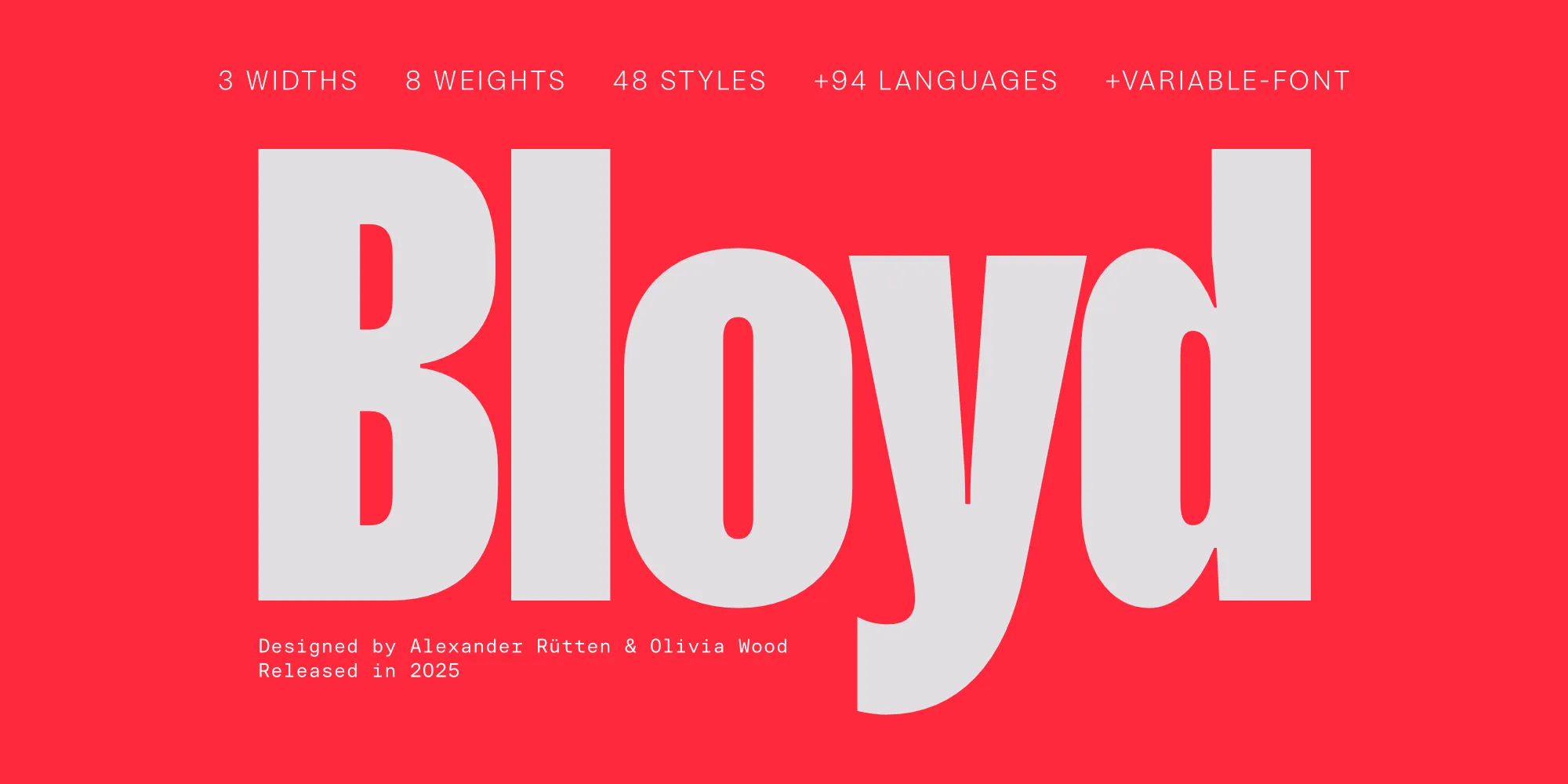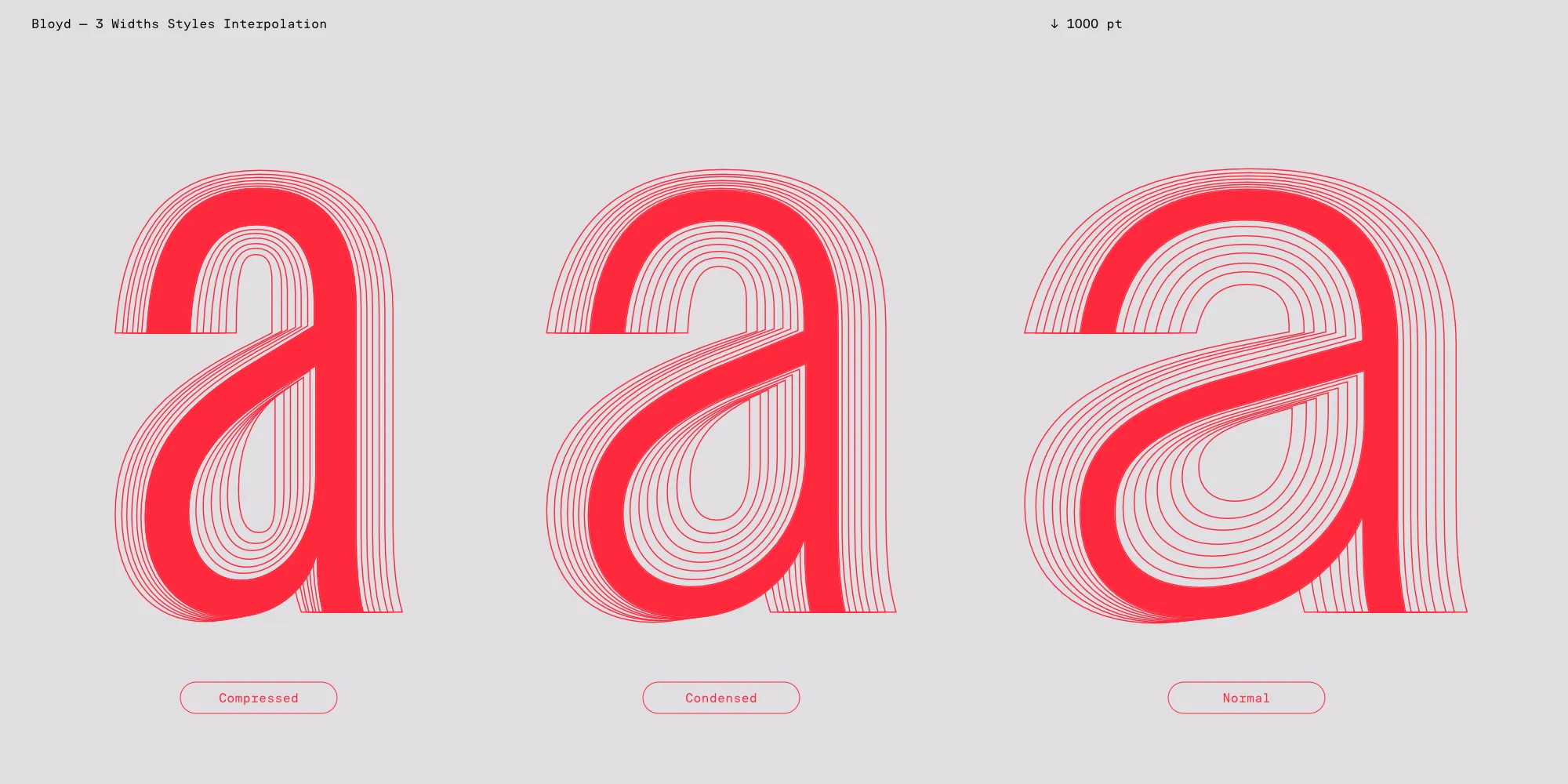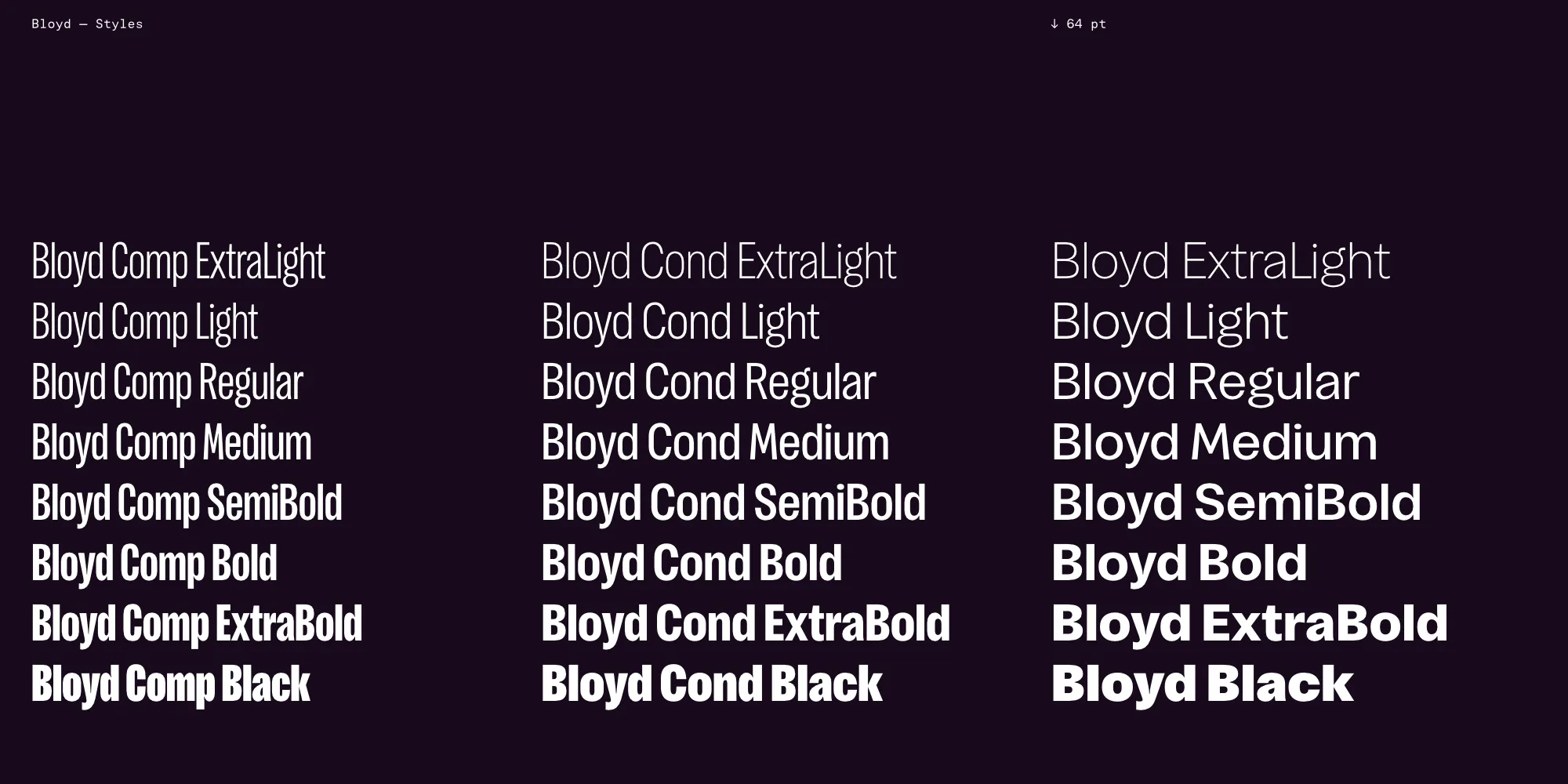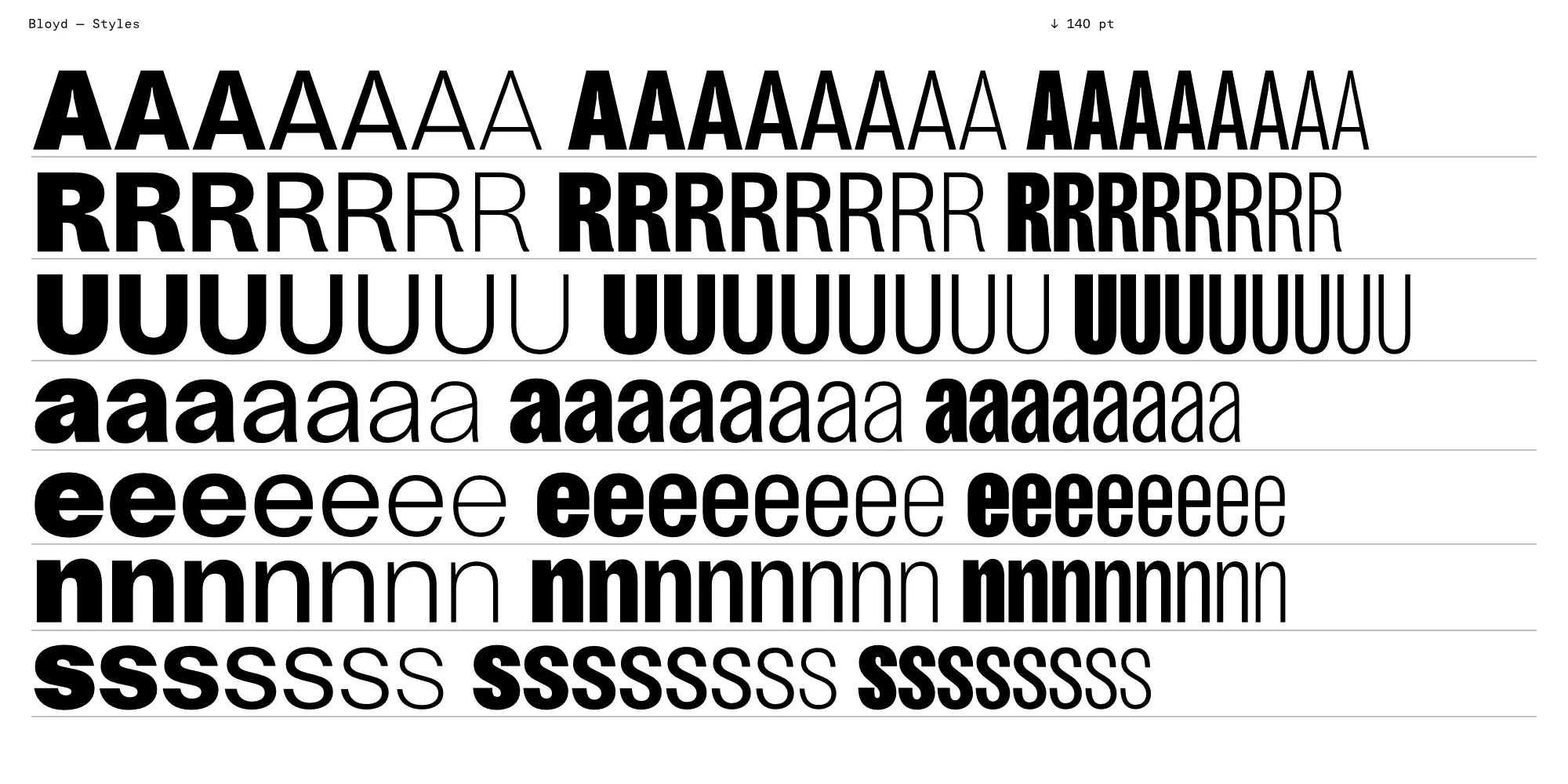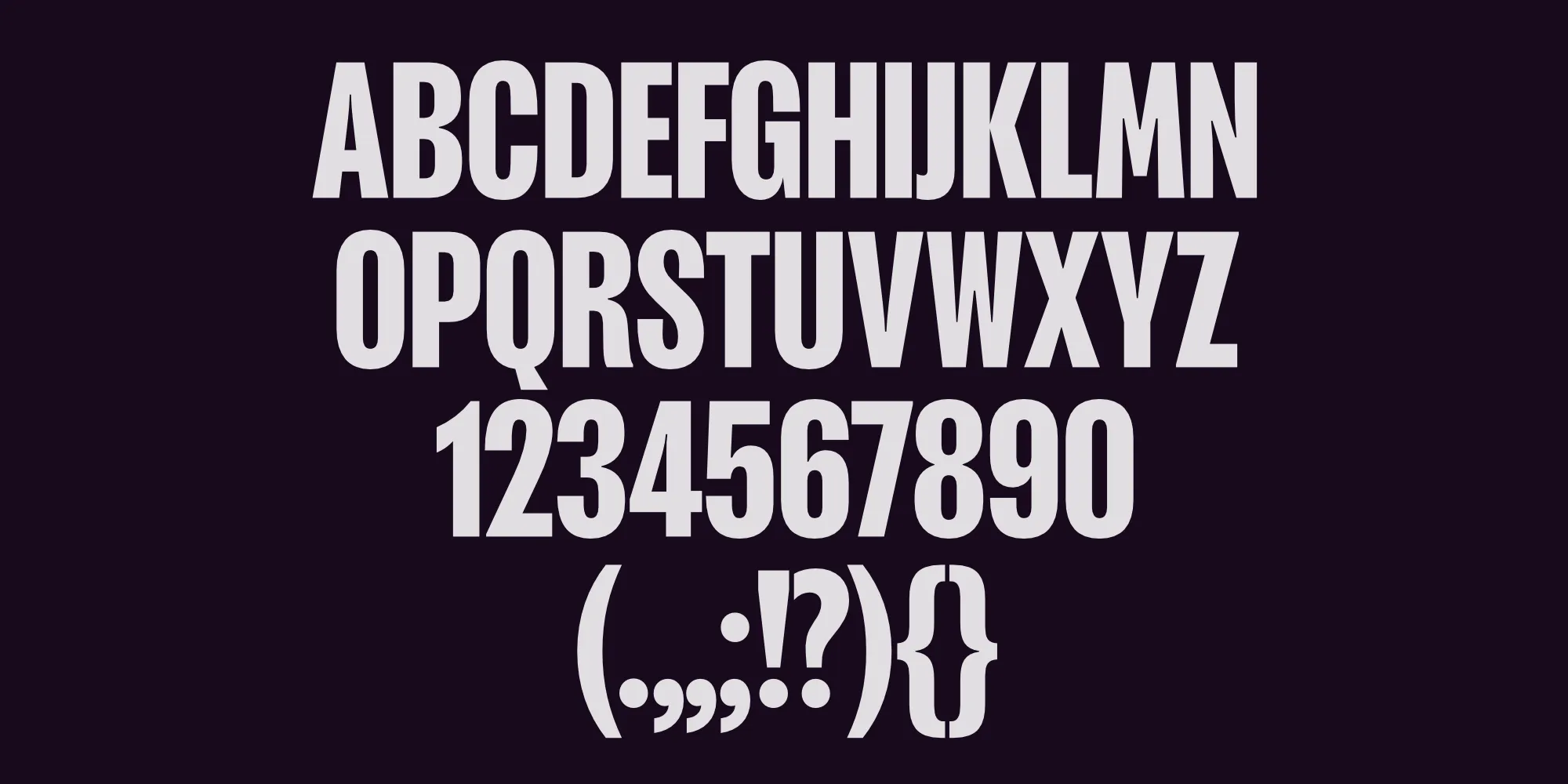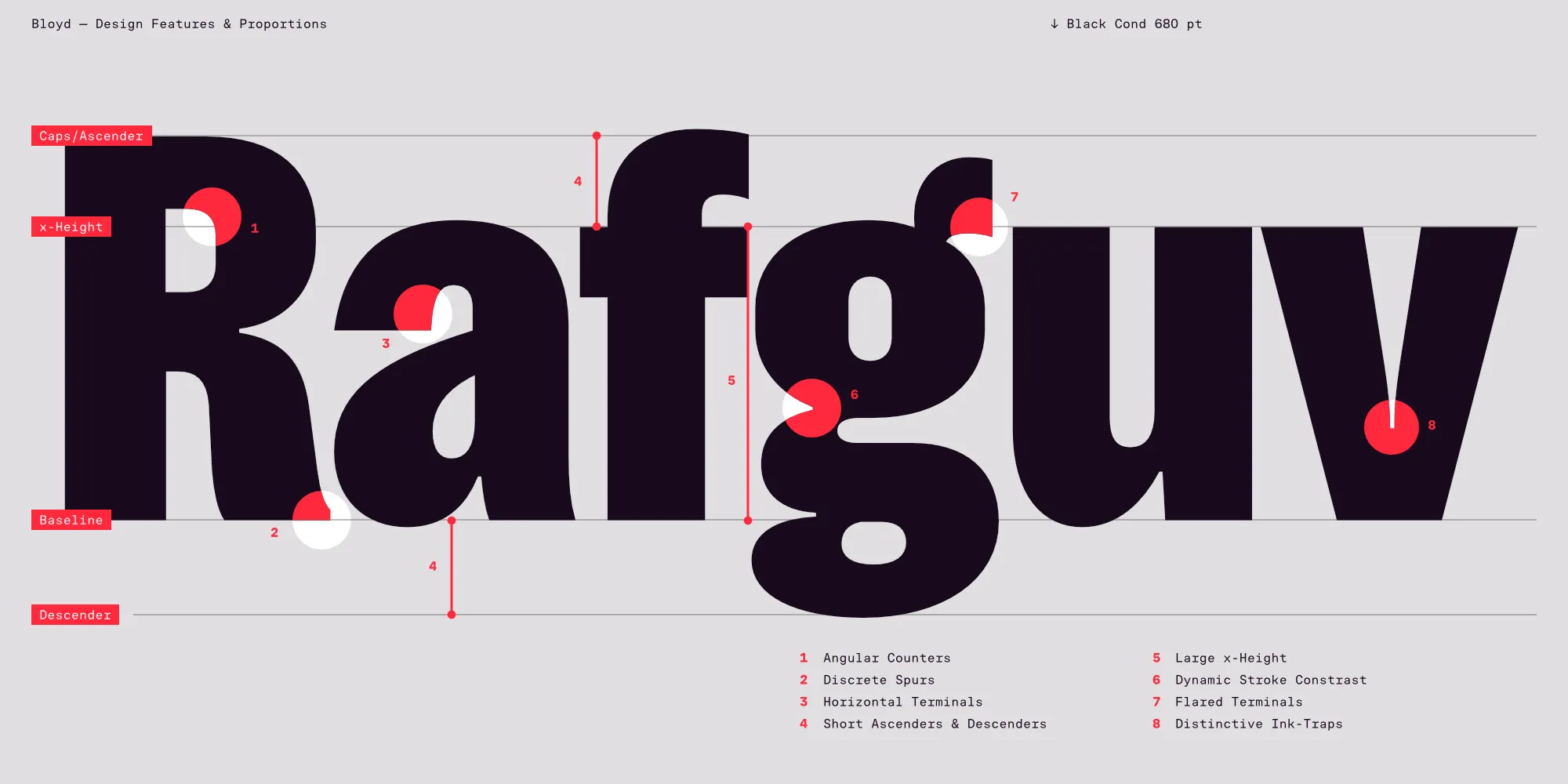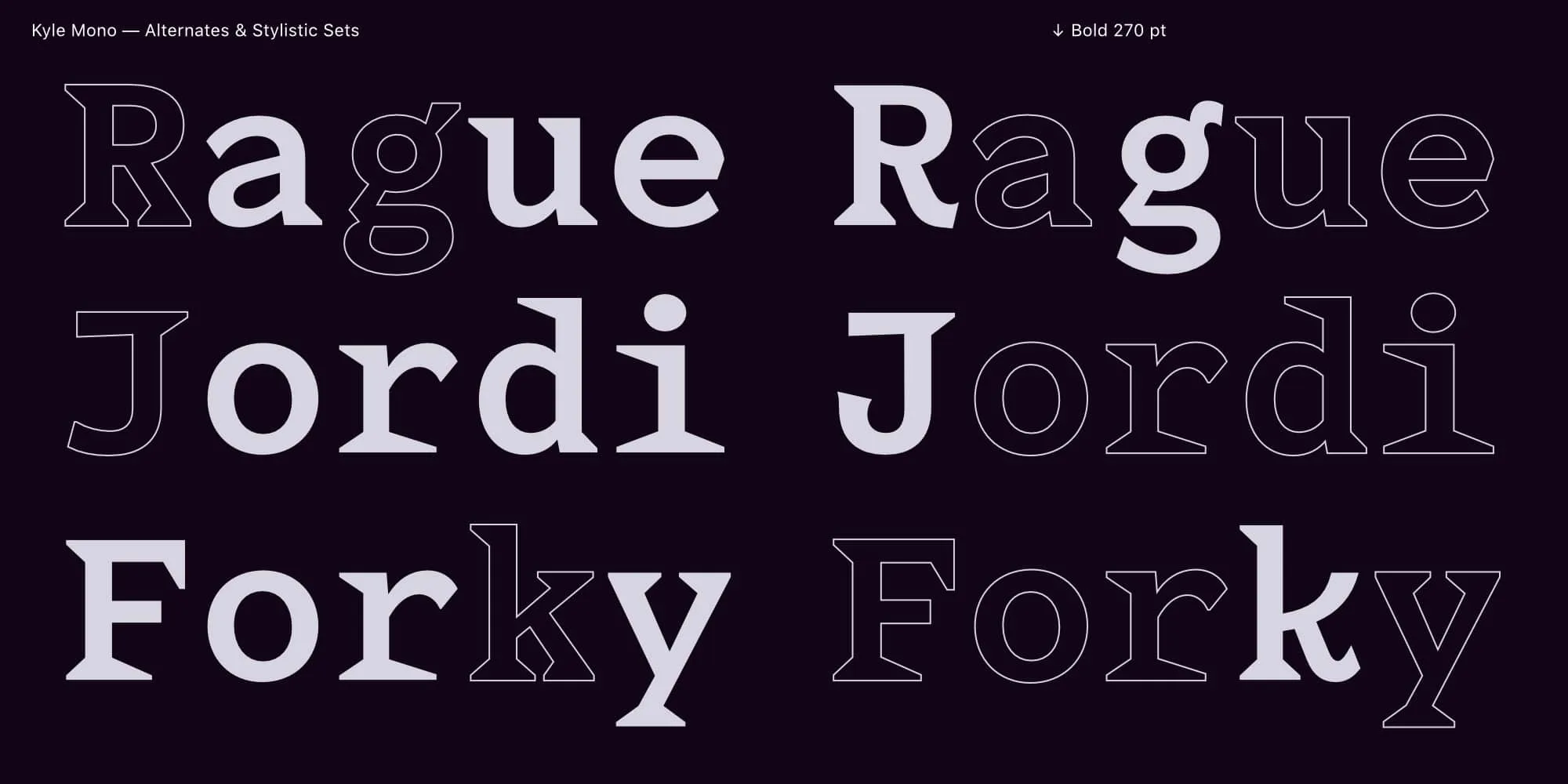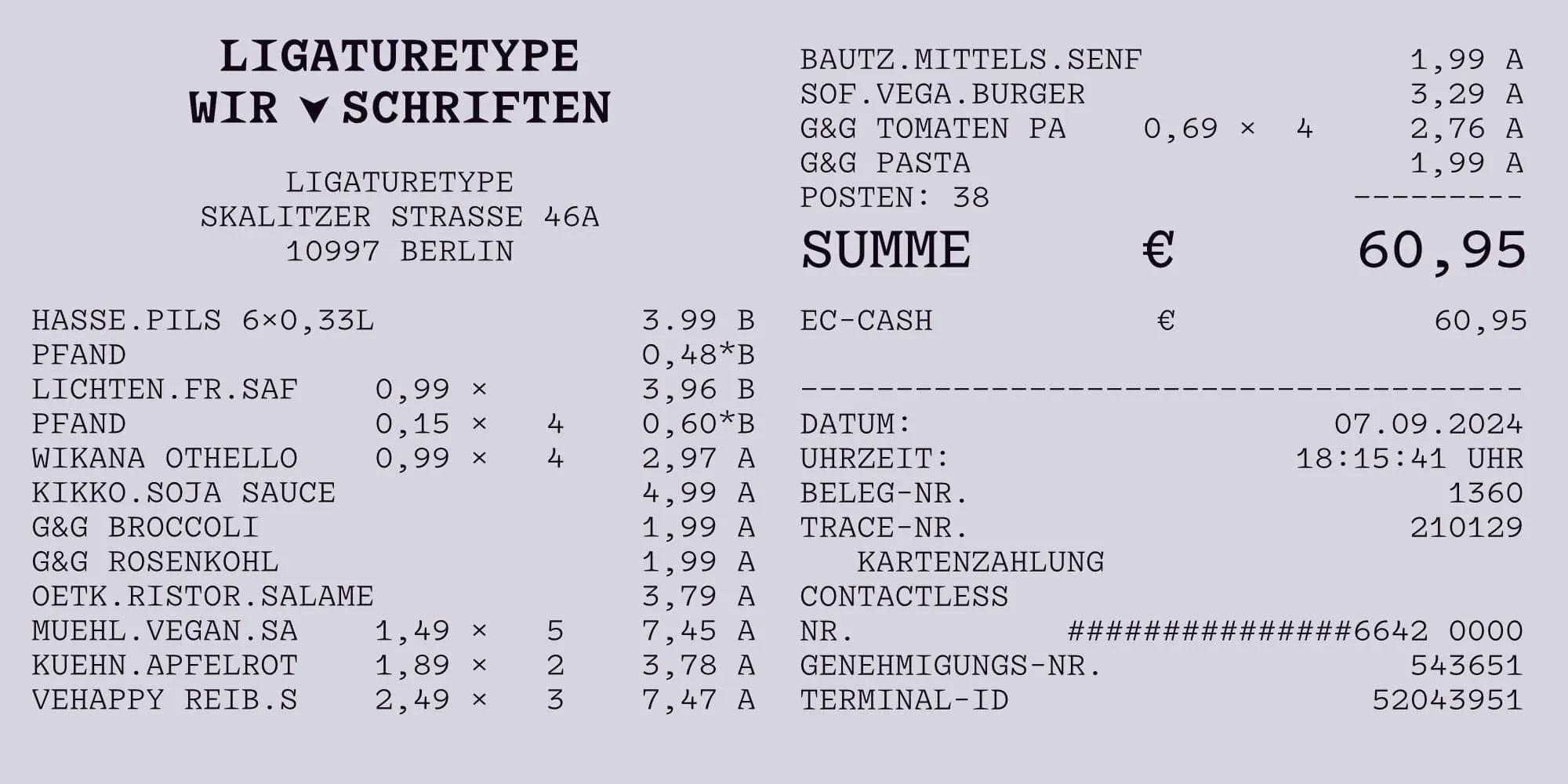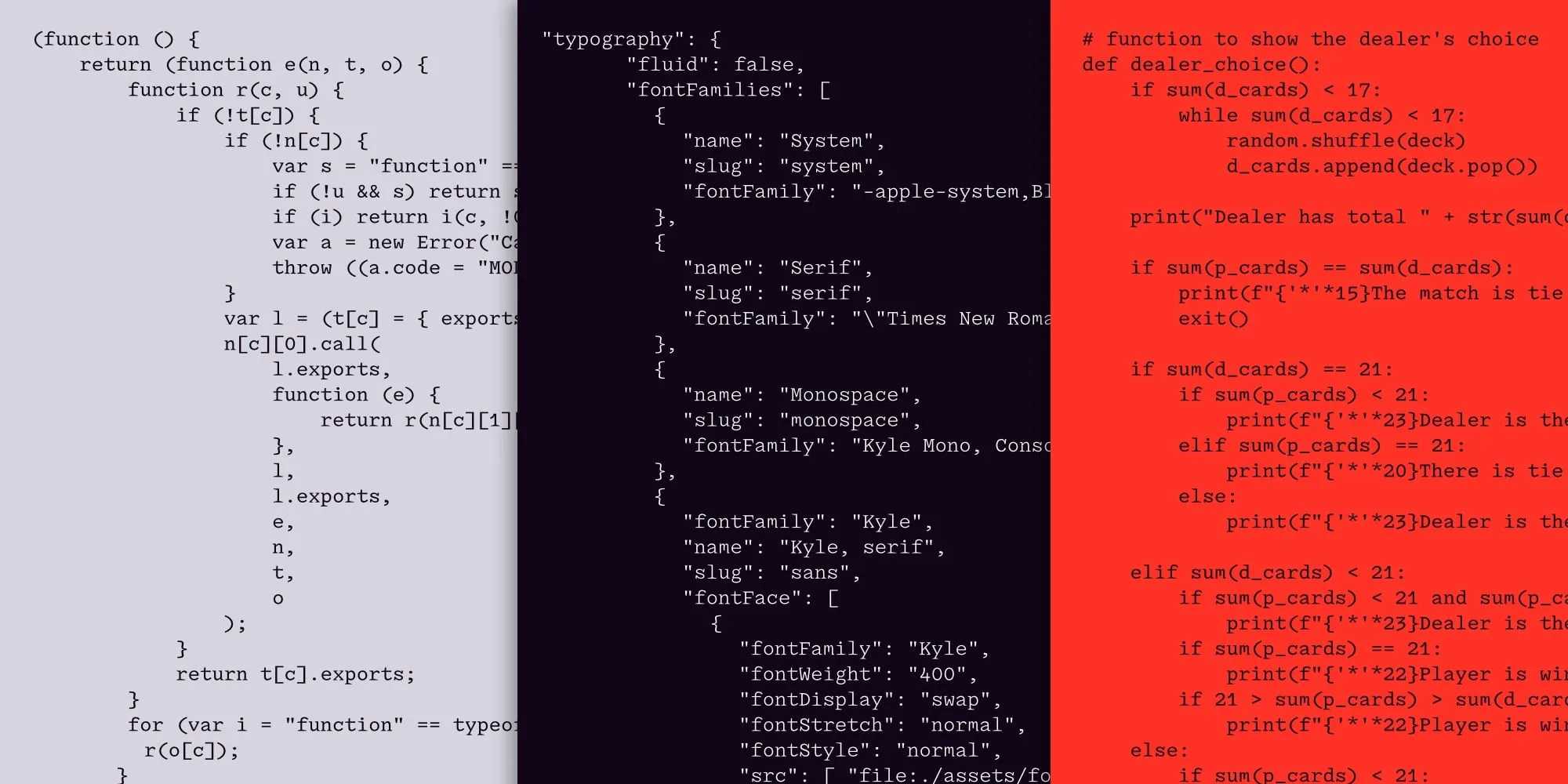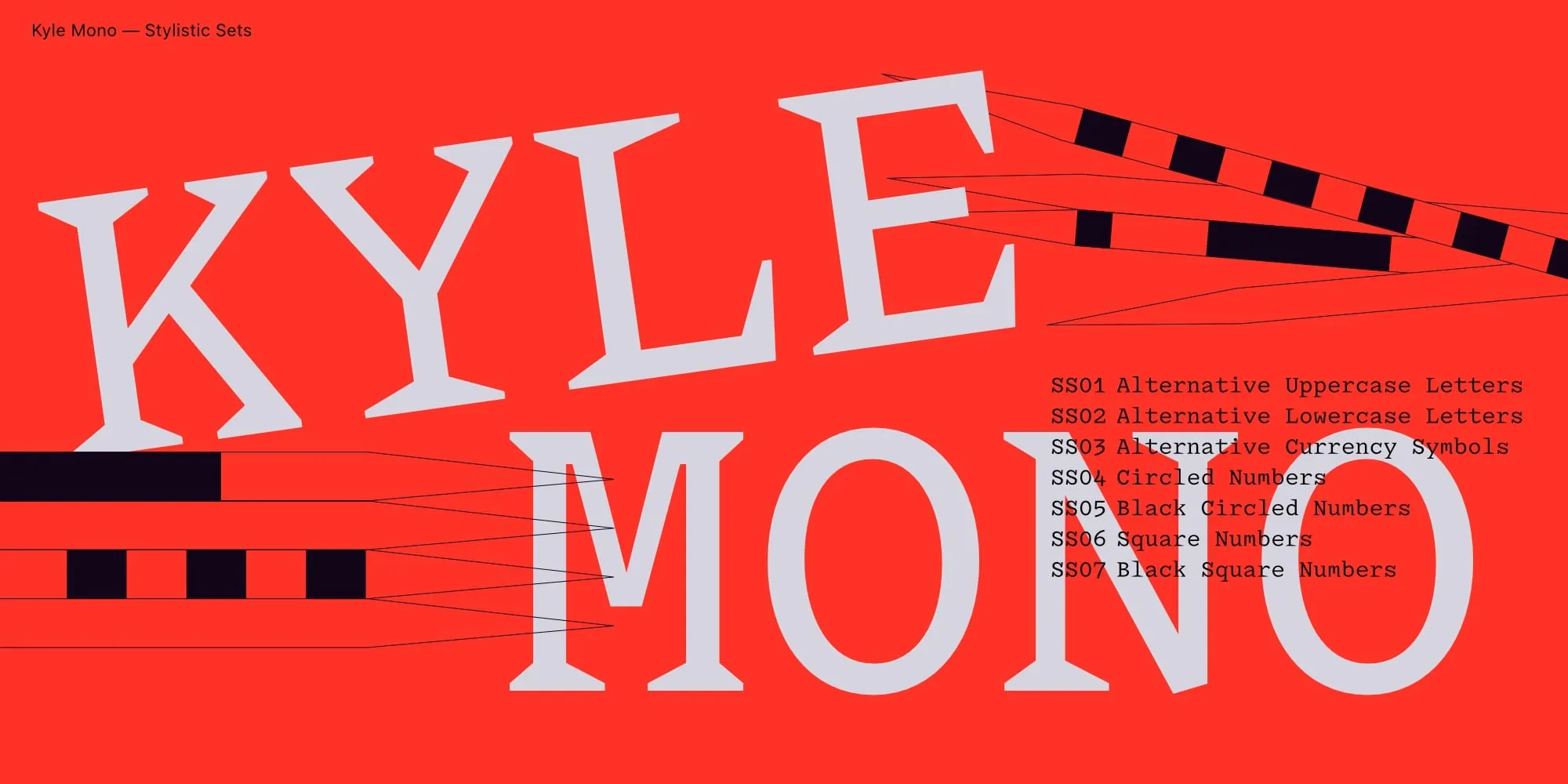
Ligature Type (Rütten & Wood)
Have you always had a fascination with letters? How did your vocation for type design come about?
A: It would be fun to say that I drew Metallica and Napalm Death logos on my pencil case in school, but I didn’t. At that age I probably wasn't really interested in letters. The first real encounter with letterforms happened completely by chance — it was an unusual graffiti piece on a factory building in my hometown that I saw from a train window. It was striking: Made entirely from straight lines, but incredibly dynamic and expressive. This contradiction sparked my curiosity. Later I climbed a fence to sketch it in a notebook. How could such energy emerge from such restraint?
One year later when I started studying, experimental typography from early techno flyers and magazines added another layer — fragmented, deconstructed, and unapologetically bold. Those influences eventually fed into my first typeface, designed during my studies.
O: I always loved books, loved everything about them. The illustrations, the stories, details like illuminated initials, the haptic qualities of books as an object. So yes, as a compulsive reader from an early age, I was fascinated with letters without quite knowing it.
One of my favourite illustrators, Maurice Sendak, had a special relationship to letter shapes and - I think - probably triggered my first interest for lettering. My absolute star by him was called „In the Night Kitchen“ and is essentially a kind of psychedelic dream story. Seventies-Style lettering features prominently in the illustrations, which I inspected carefully on repeat.
But I first became conscious of letter-forms through drawing and illustrating myself. When I moved from Canada to Germany, I was nine and spoke zero German. In my new home, I attended a German Steiner School. In our work books I was required to write in German and to decorate and illustrate the pages. As I understood nothing of the text I was copying into my book, the letter shapes seemed to develop a life of their own, more akin to my drawings. On top of not speaking German, I had Russian lessons and was learning to read and write Cyrillic letters, another case of total foreignness requiring me to concentrate on the letter-shapes.
At that point in time, I was just doing what needed to be done. My conscious interest for letter-shapes and modular forms didn’t emerge until I was in my studies.
Could you each tell us about your personal journey into type design, and in particular what led you to start working together (university, shared interests, early collaborations)?
A: Our collaboration began at the very, very beginning. Olivia and I met for the first time at the entrance exam to our design program. So our entire typographic journey unfolded in parallel. Typography classes quickly became a shared focus, helped by a Professor who encouraged curiosity and experimentation.
O: Our first type-design project in second year was really intense. We worked manually on graph paper until our professor was happy. Then we digitised our designs using a Wacom tablet and font design software called Ikarus – named for its constant crashes in its early days. Of course Ikarus was a far cry from the ease of Glyphs. Points had to be marked on to a large scale drawing in approximately 30 degree intervals and were digitised using a special lens-mouse with a little cross on it to target points precisely.
Alex was especially in love with type design and basically just never stopped. At design school, he already had a reputation for being a „type-nerd“, spending hours in the typography classroom drawing curves.  Everyone loved designing their own alphabet, but very few had the patience.
At the beginning I was more of a passive participant in Alex’ process, until during Corona we ended up using our socially distanced time for a type project we had been thinking about for a while, Relais. In this phase of boredom, we started a number of projects, some finished and some still unpublished. One is „Copic“, a design inspired by hand drawn signs in our local construction market, one of the few places we could go to during lockdown.
How did you meet Matthieu Salvaggio and Blaze Type?
A: We ran into Blaze Type while looking for the right foundry for our first collaborative project „Relais Display“. A friend sent me a list of his favourite foundries and Blazetype was on it. Matthieu liked our Specimen and we immediately liked his positive energy and enthusiasm. After earlier releases with larger distributors, my intention was to find a smaller, more focused place  — a place where our design wouldn’t quickly disappear among hundreds of others and where personal contact with designers is part of the business style.
How did the decision to publish your first typeface with Blaze Type come about? Were there editorial or strategic discussions before its release?
O: Blazetype was a good choice for "Relais" because the foundry has a strong focus on headline- and editorial typefaces and our design is primarily intended for use in titles and introductory texts.
With hindsight, how do you view that first joint publication today? Did it mark a turning point in your practice?
O: Across all projects, there is both continuity and variety. Each design explores a different territory, often deliberately avoiding repetition. At the same time, a consistent theme runs through the work: the space between readability and expression. Typefaces that are neither purely text nor purely display, but operate somewhere in between. That balance remains the central thread — even as the forms themselves continue to change.
A: I hope that some aspects of our personality and character found their way into our work. So there must be a common thread. Does that sound logical?